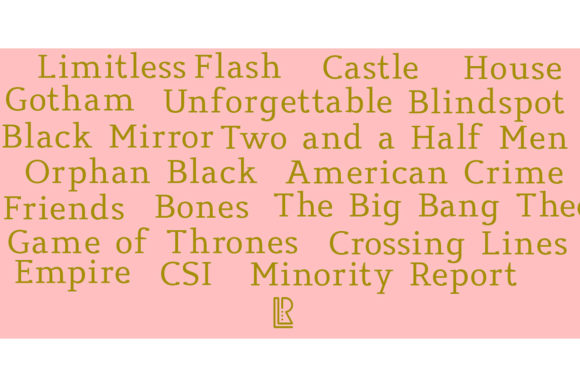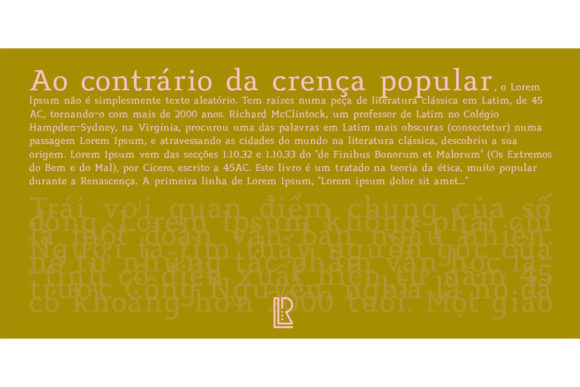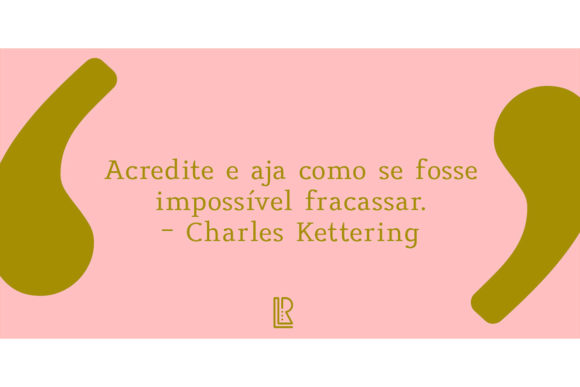
Xecrian
Xecrian: A Cool and Adaptable Slab Serif Font
Xecrian is a cool and adaptable slab serif font suitable for a wide range of applications. It’s perfect for book texts, documentation, business reports, business correspondence, magazines, newspapers, posters, advertisements, multimedia, and corporate design.
Key Features of Xecrian
• Cool Design: Offers a modern and stylish look suitable for various applications.
• Slab Serif Structure: Features distinctive serifs that add character and style.
• Versatile Application: Ideal for both print and digital media projects.
• Adaptable Nature: Suitable for a wide range of design needs, from formal to creative.
Ideal Uses for Xecrian
Xecrian’s unique characteristics make it particularly well-suited for:
When incorporating Xecrian into your designs, consider these tips:
• Use for both headlines and body text to showcase its versatility.
• Consider pairing with sans-serif fonts for contrast in complex layouts.
• Utilize its adaptability across various creative projects to enhance visual appeal.
Xecrian is an excellent choice for designers looking to add a cool and adaptable slab serif font to their typographic toolkit. Its ability to enhance various design projects makes it stand out in the world of typography. Whether you’re working on business reports, creating layouts for magazines, or developing content for multimedia presentations, Xecrian offers the perfect blend of style and functionality.
Furthermore, Xecrian’s unique design allows it to shine in various contexts. From formal business documents to more creative advertising layouts, this font can elevate your projects. Its striking yet functional style works particularly well in designs that require a thoughtful and engaging mood.
In conclusion, Xecrian is a font that truly captures the essence of versatility and impact in typography. Its ability to work well in both professional and creative layouts showcases its flexibility. For those looking to add a touch of cool charm to their work, Xecrian can enhance themed creations with its distinctive style. It’s the perfect choice for designers seeking to make a strong, stylish impact across a wide range of creative projects.